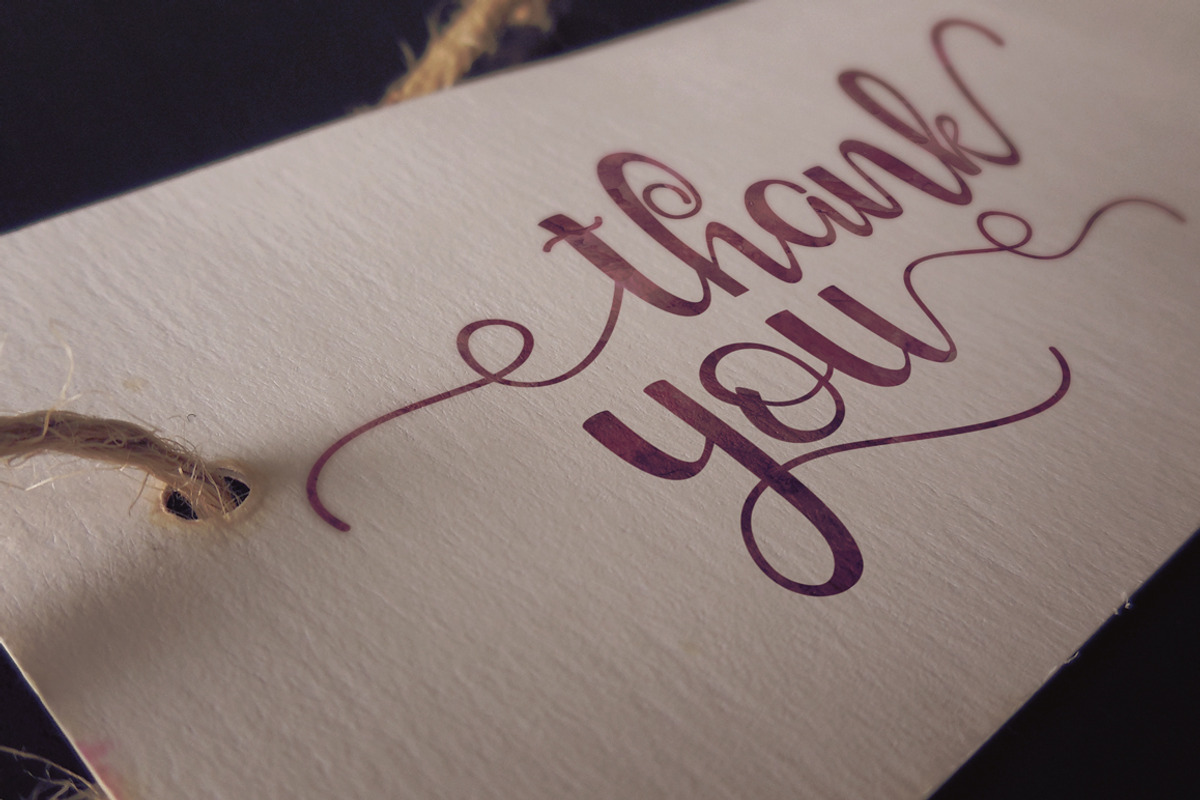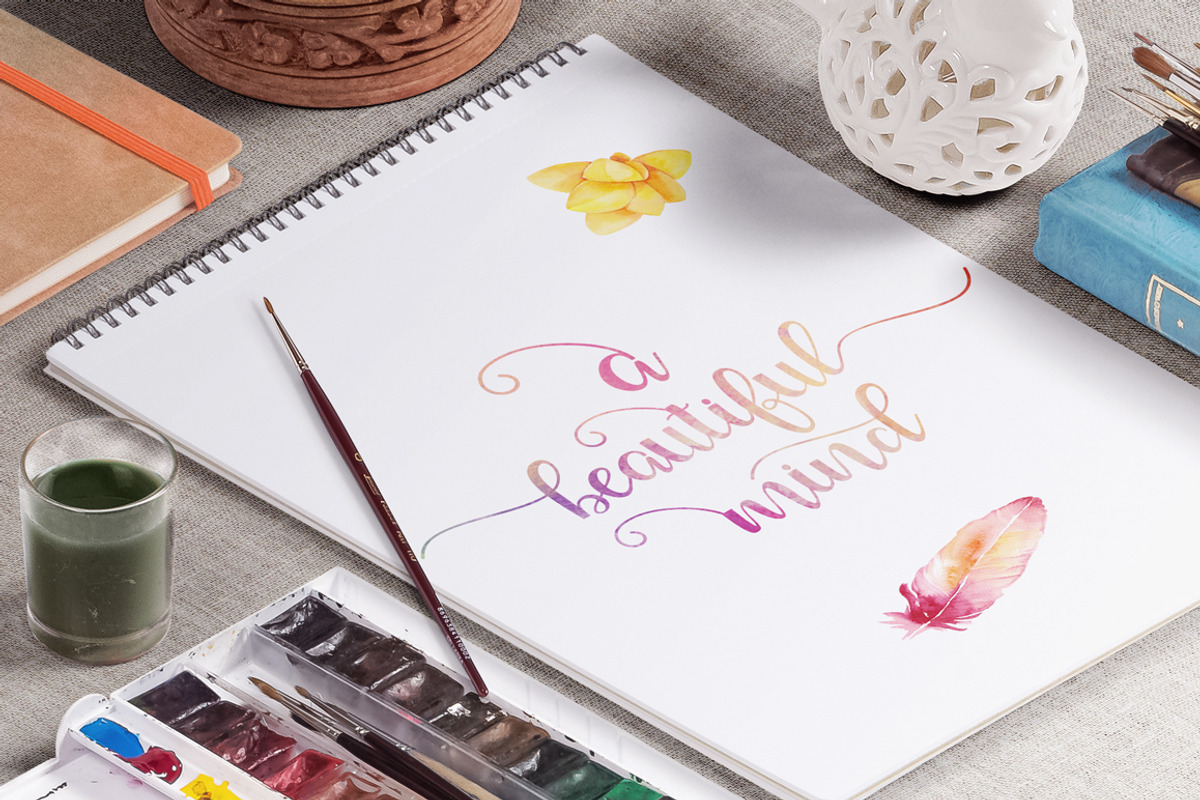
Shirley Script
Introducing Shirley!!! :)
Shirley is a script font that combined brush lettering with traditional hand writing. Shirley is multipurpose and flexible, make it easy to match with another typefaces to create some beautiful project such as wedding invitation, vintage design, greeting card, poster, book cover, illustration, etc.
Shirley comes with 445 glyphs in total and has given PUA unicode (specially coded fonts), with tons of alternate characters. It was divided into a several OpenType feature such as Ligature, Contextual Alternates, Stylistic Alternates, and Stylistic Sets. To enable the OpenType Stylistic alternates, you need a program that supports OpenType features such as Adobe Illustrator CS, Adobe Indesign & CorelDraw X6-X7.
Languages supported: Breton, Catalan, Czech, Danish, Estonian,French, German, Hungarian, Icelandic, Italian, Romanian, Scottish Gaelic, Slovak, Latvian, Lithuanian, Norwegian, English, Finnish, Polish, Portuguese, Slovenian, Spanish, Swedish, Turkish, Welsh. Basically, all european languages that are based on latin alphabet.